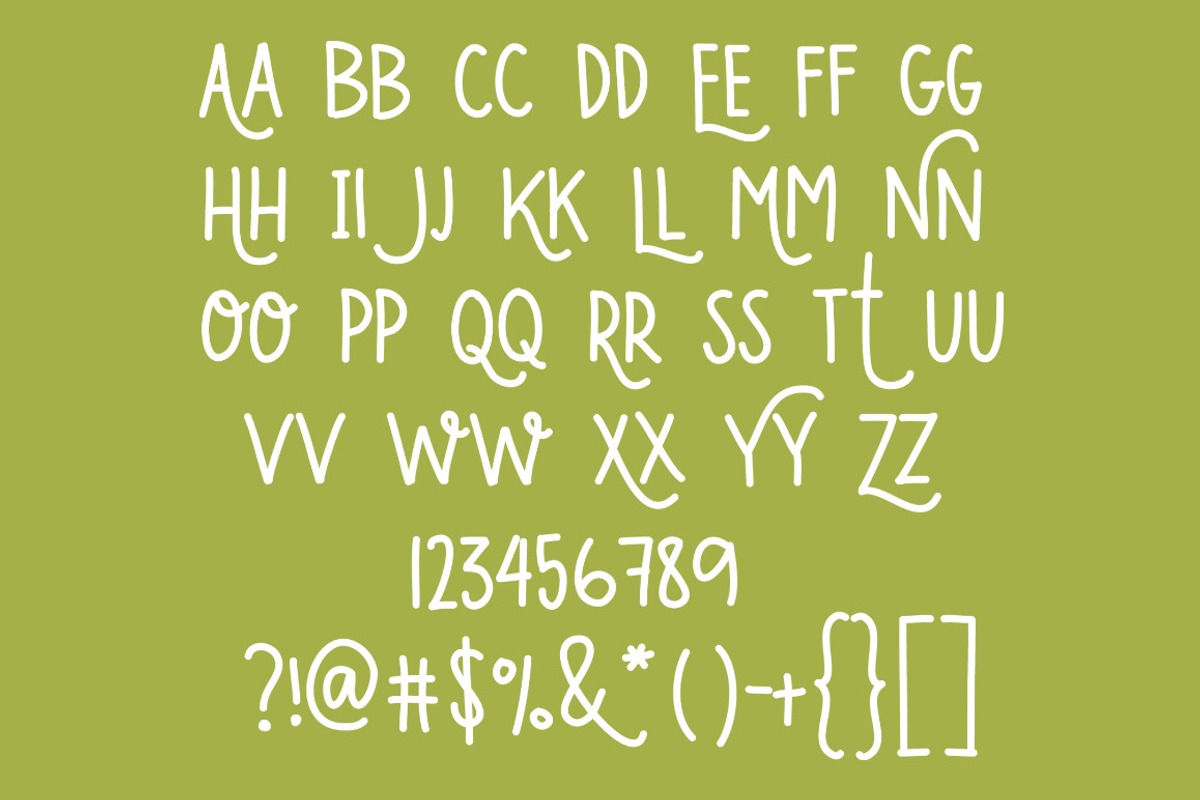
Papaya Sans- Handwritten Font
Papaya Sans- Handwritten Font by Sabrina Schleiger Design is a font selected for branding, posters, packaging, typography.
- You can keep it simple with an all-caps look or add some spunk by mixing and matching caps and lowercase!
Papaya Sans- Handwritten Font by Sabrina Schleiger Design fits naturally into Branding, posters, packaging, typography.